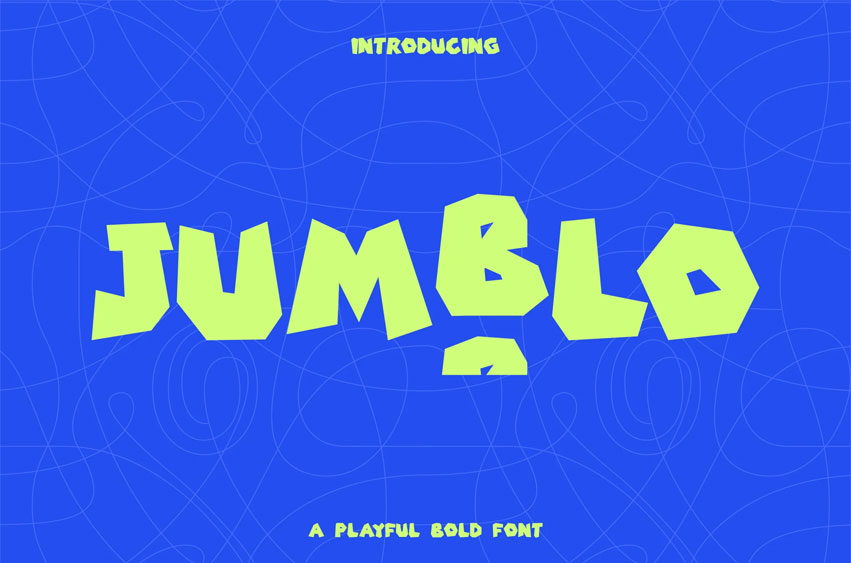
Jumblo Font is a playful bold display font created for clear, confident, and modern visual communication. Featuring thick strokes and solid letterforms, this font delivers a strong visual presence while remaining clean and highly readable.
Designed primarily for display use, JUMBLO is well suited for branding, packaging, posters, headlines, social media graphics, product labels, and promotional materials. Its balanced proportions and bold construction make it versatile across a wide range of creative and commercial projects.
JUMBLO performs consistently in both digital and print applications, offering a reliable bold style with a contemporary feel—ideal for designers seeking a playful font that remains professional and impactful.
JUMBLO – Playful Bold Display Font Features
• Bold display font with a playful yet clean design
• Strong letterforms for clear and confident readability
• Suitable for branding, packaging, posters, and marketing use
• Optimized for headlines and short text
• Works well in print and digital media